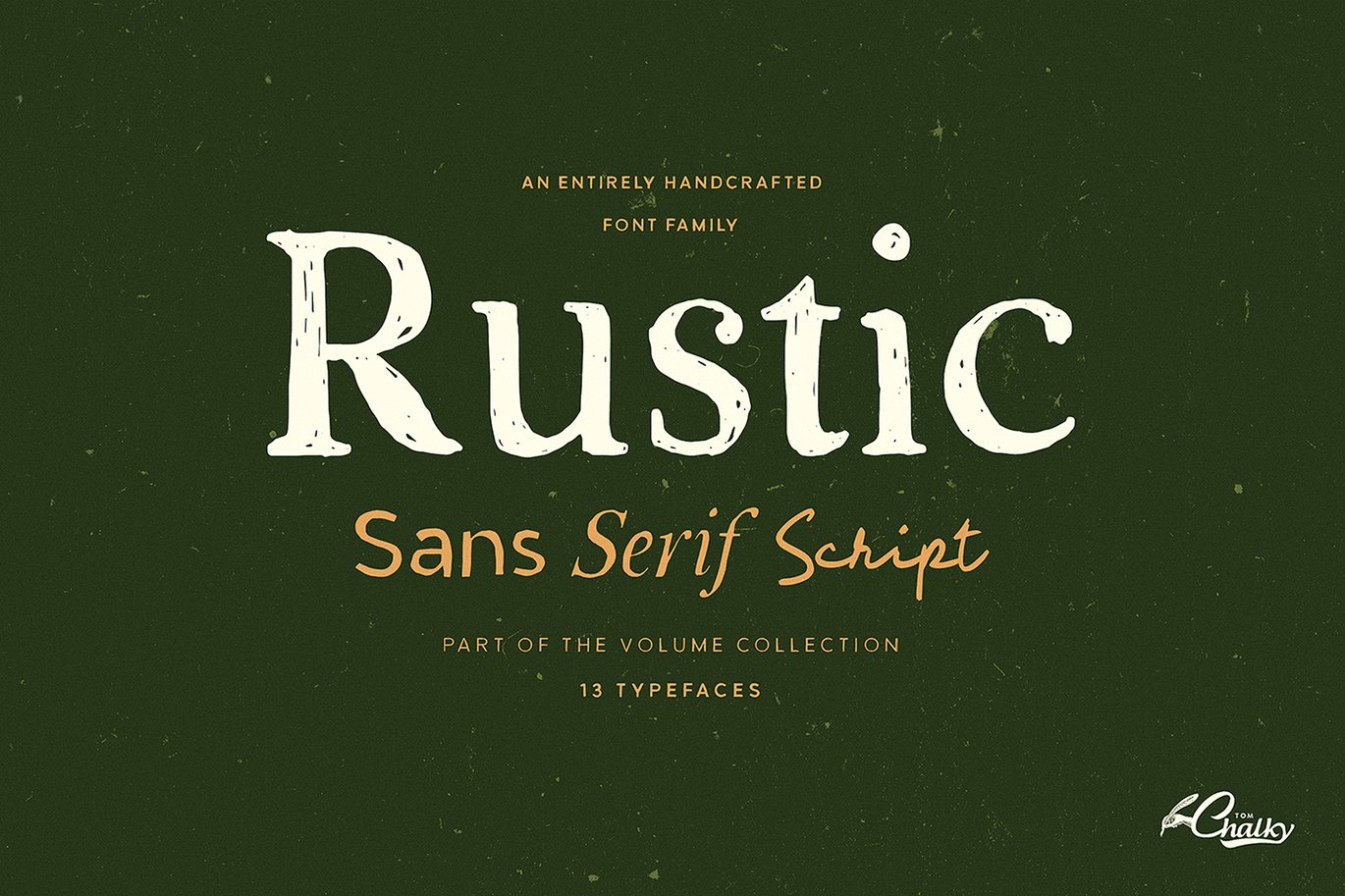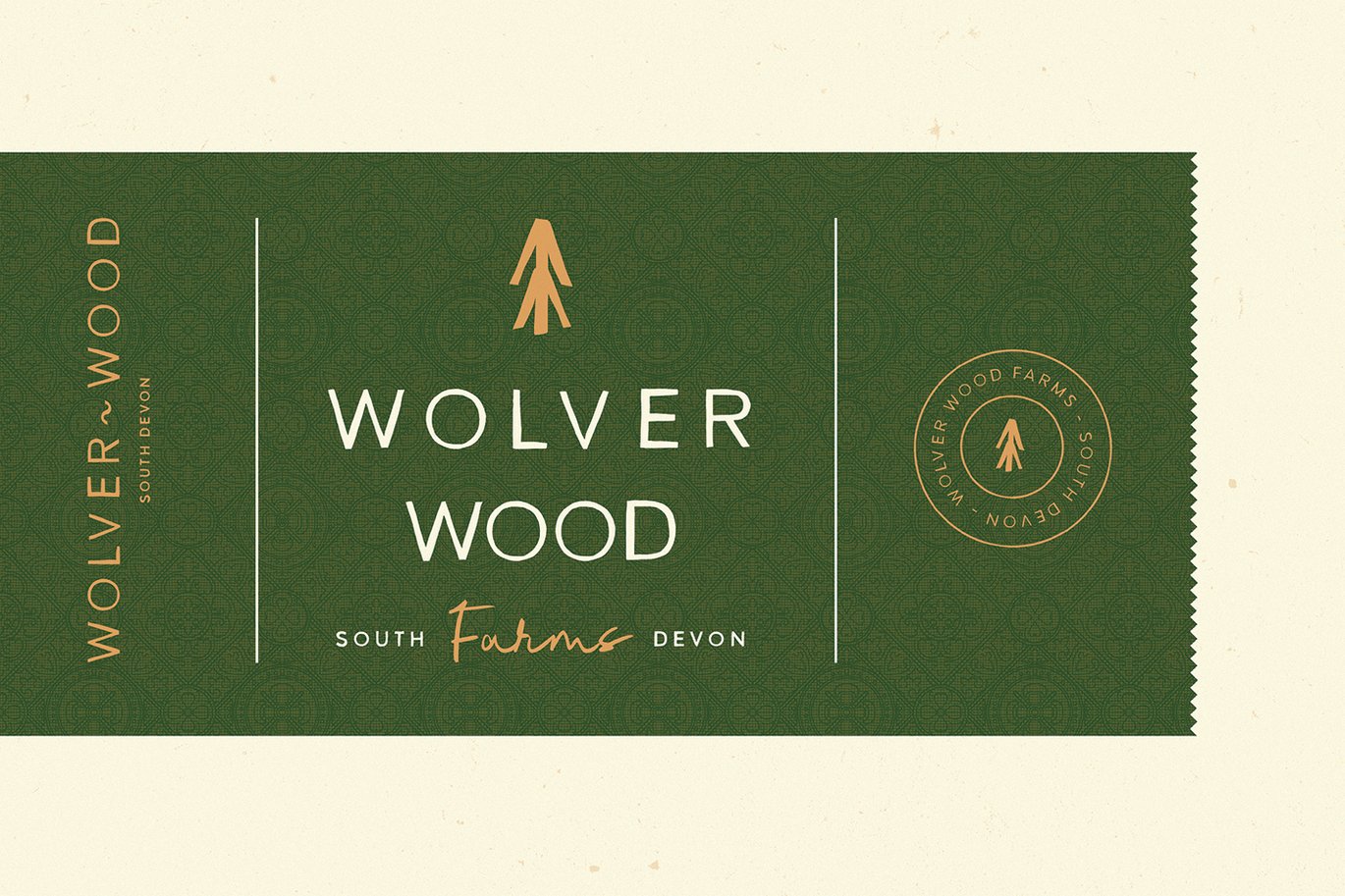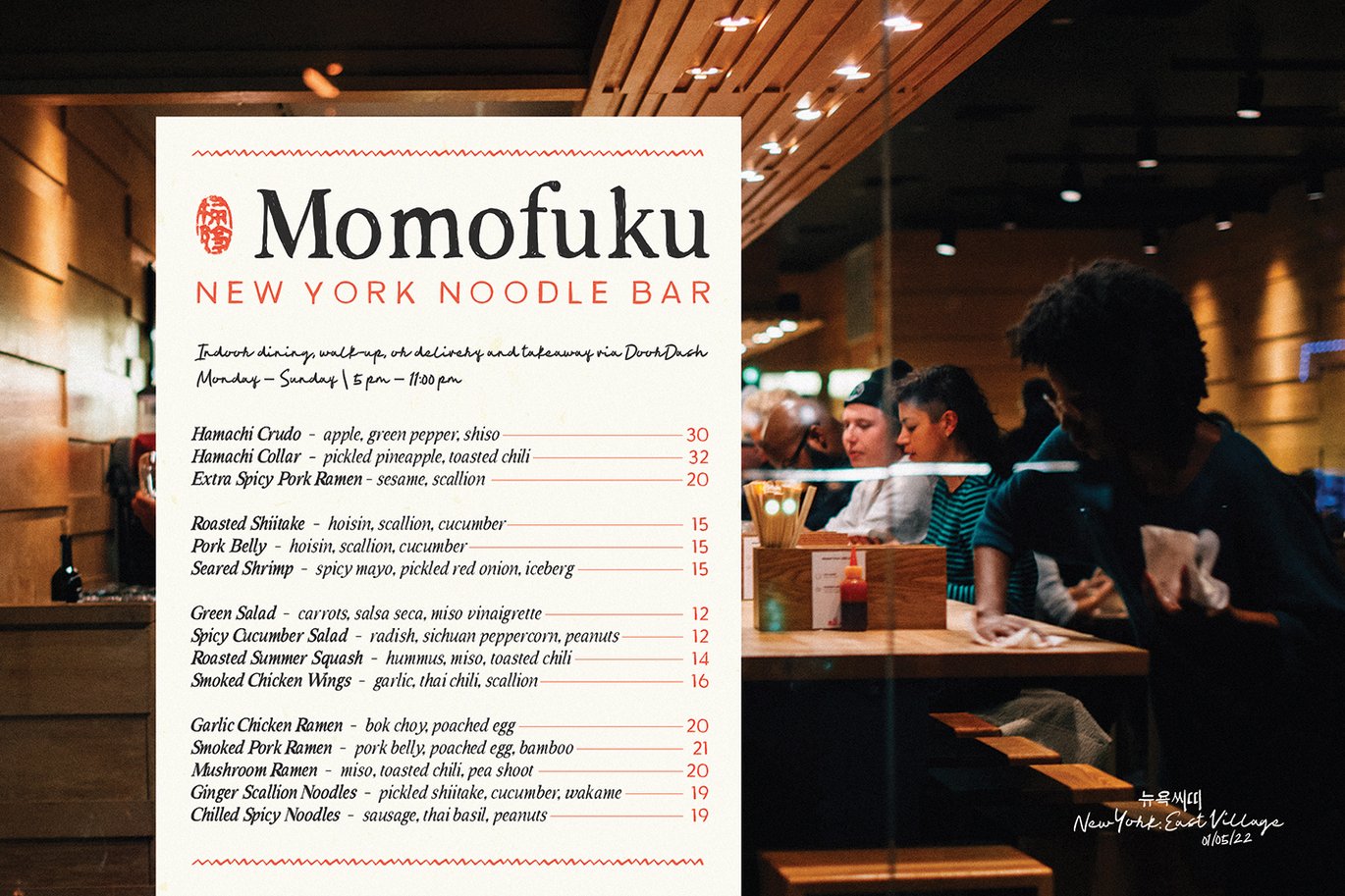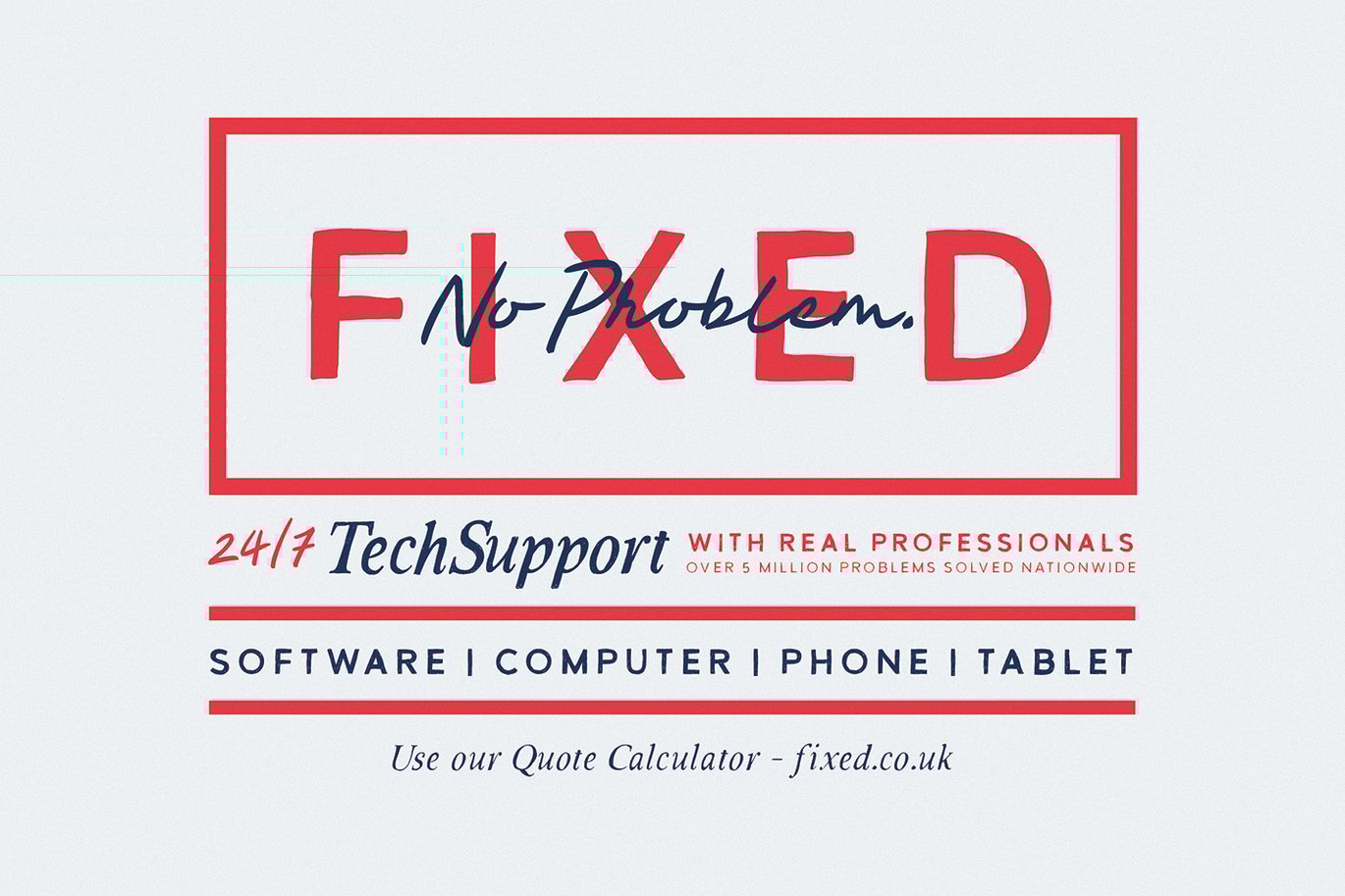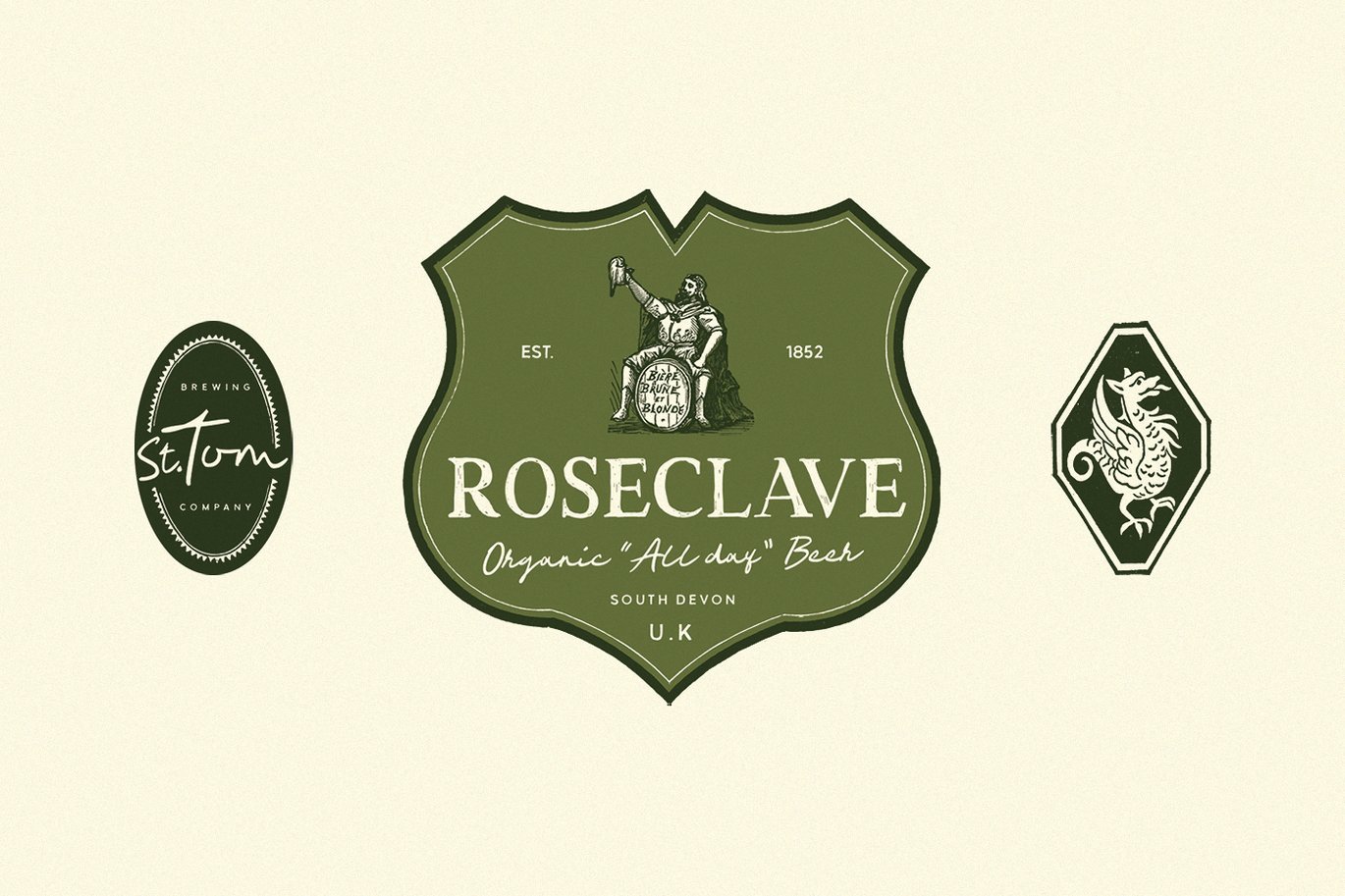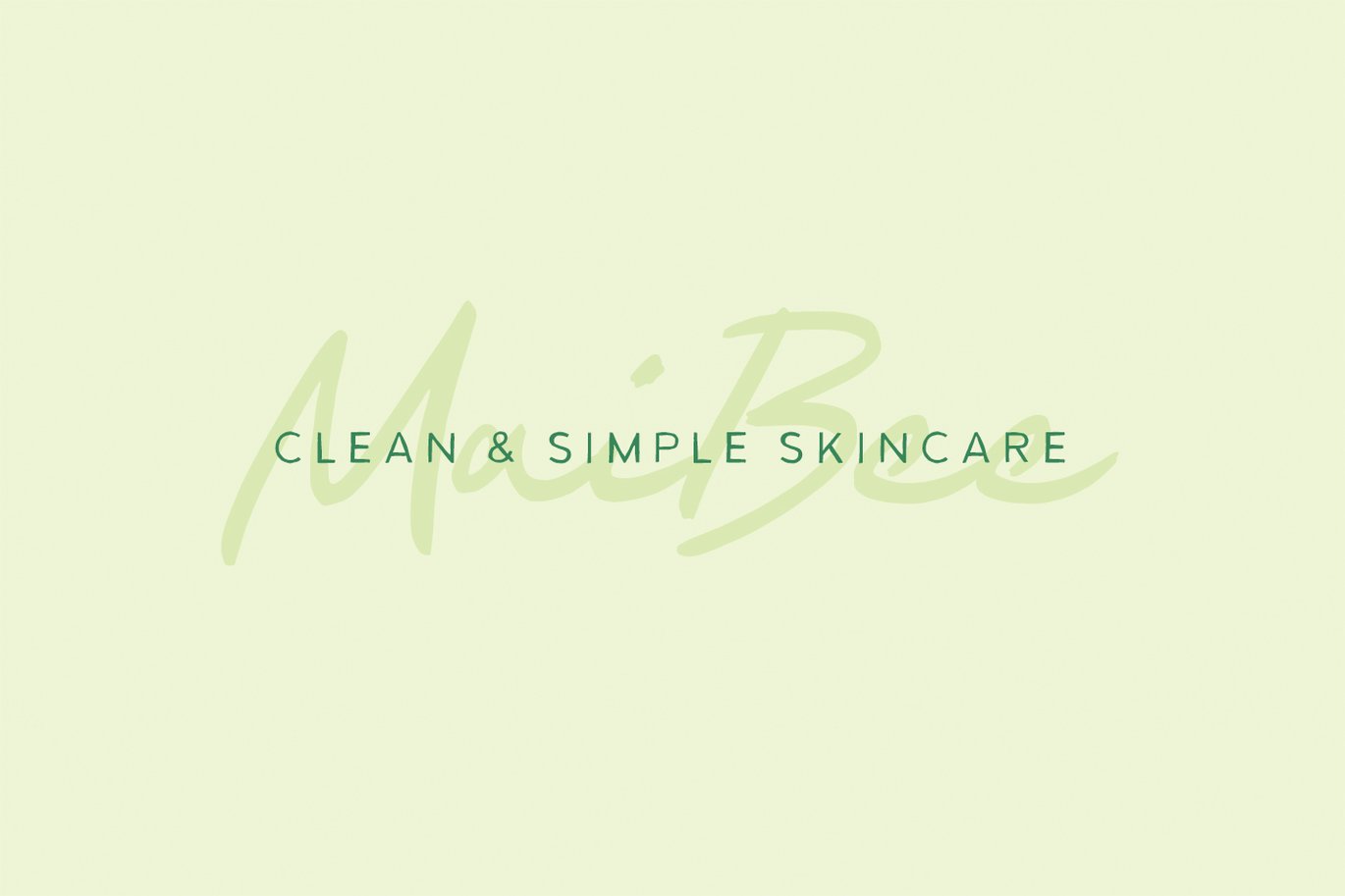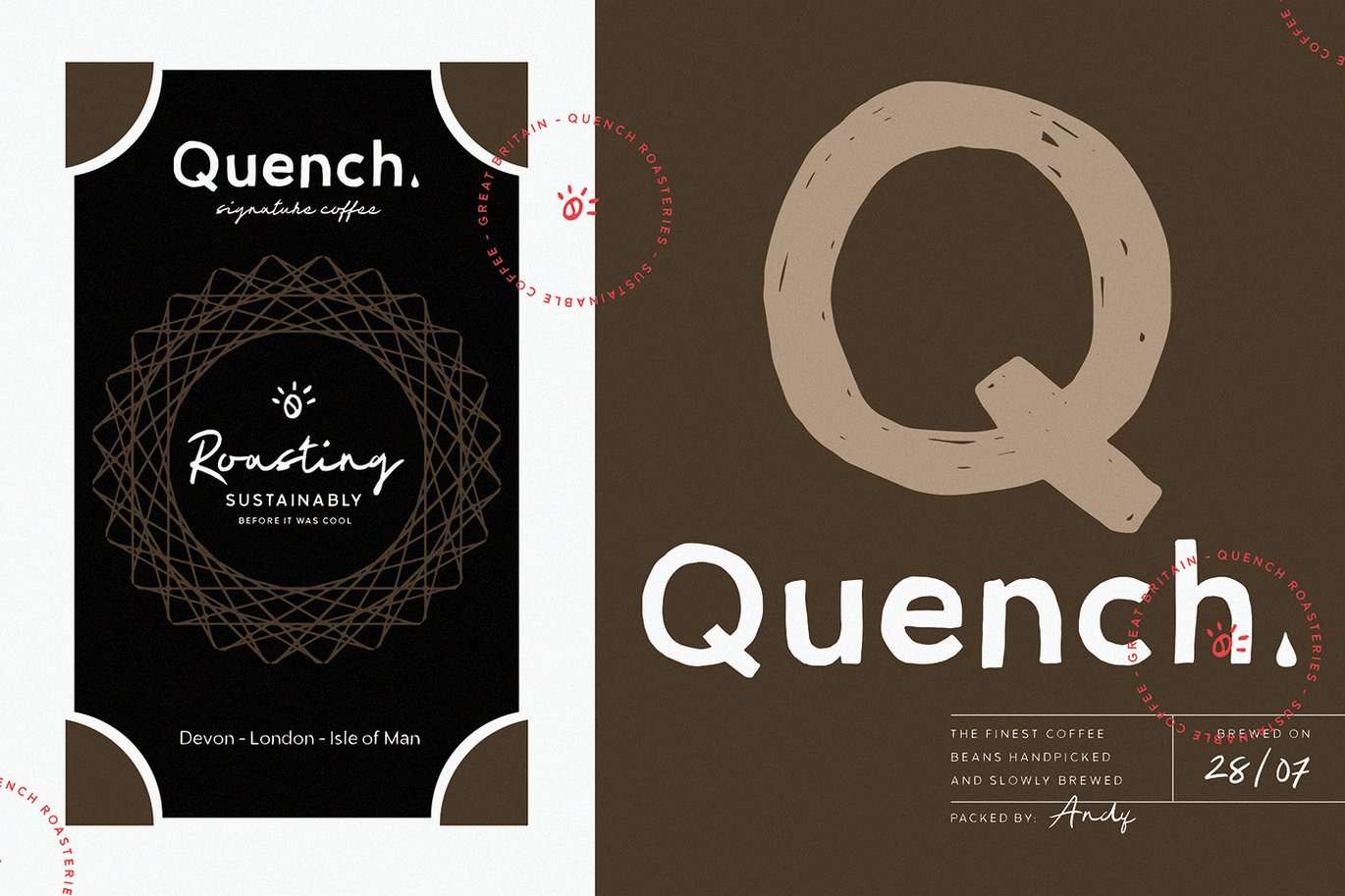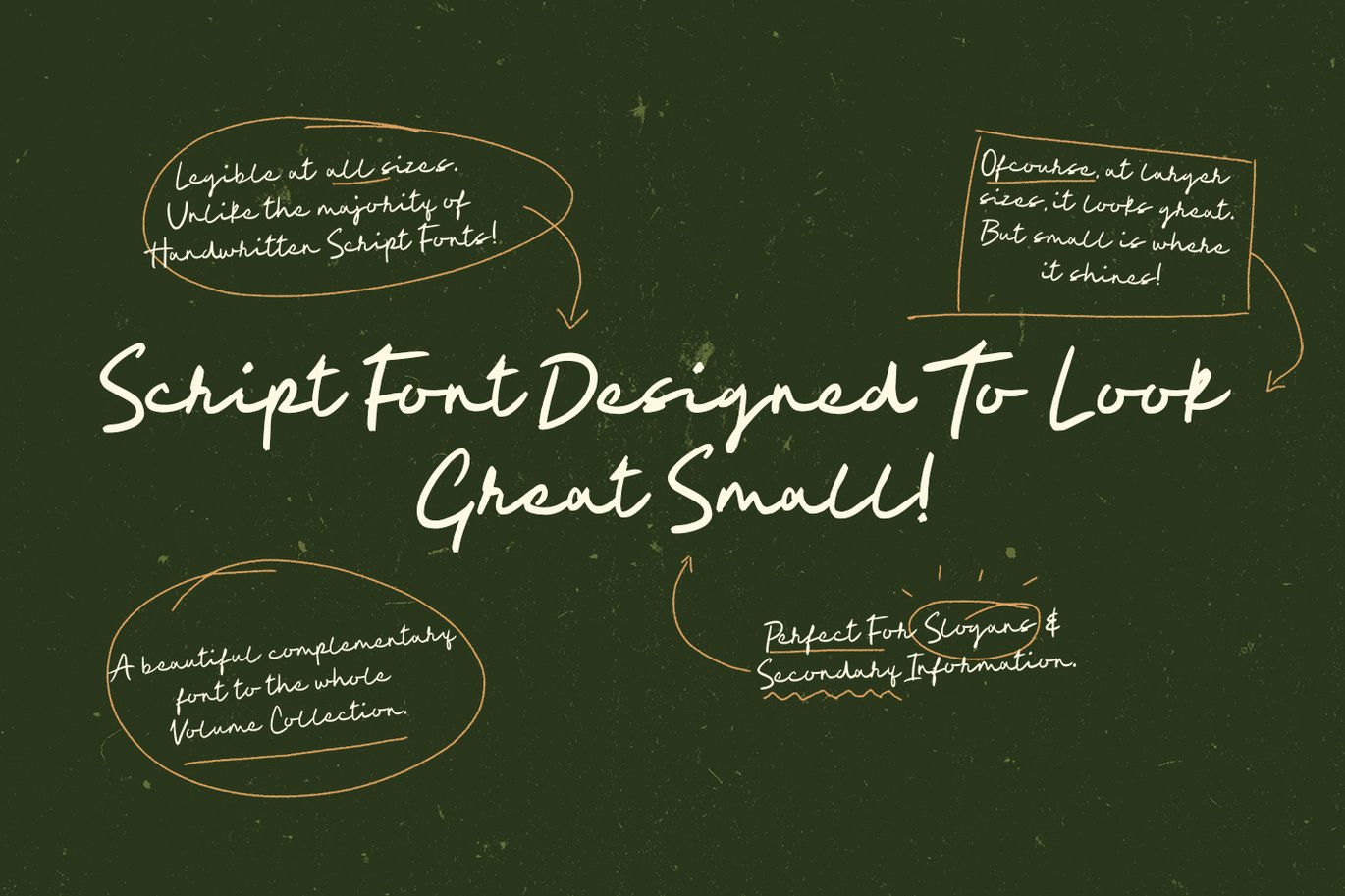
Rustic – Handcrafted Font Family
Based on the design of the ‘Volume’ font family, the Rustic collection has taken on a whole life of its own! With a total of 13 fonts designed to complement one another beautifully, this collection is perfect for projects involving organic/handmade/local/human-centric products and services.